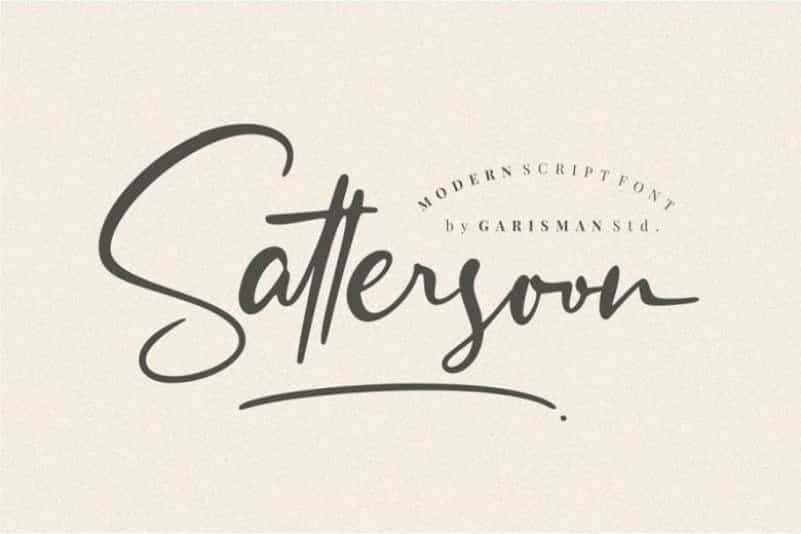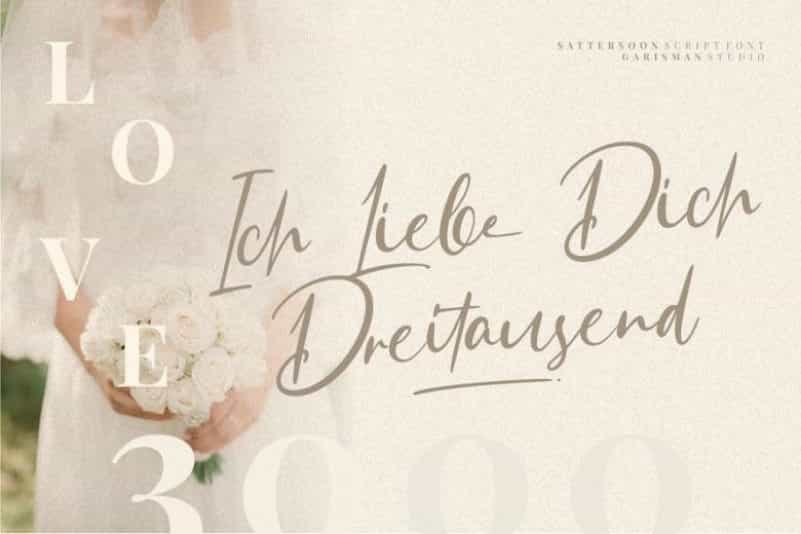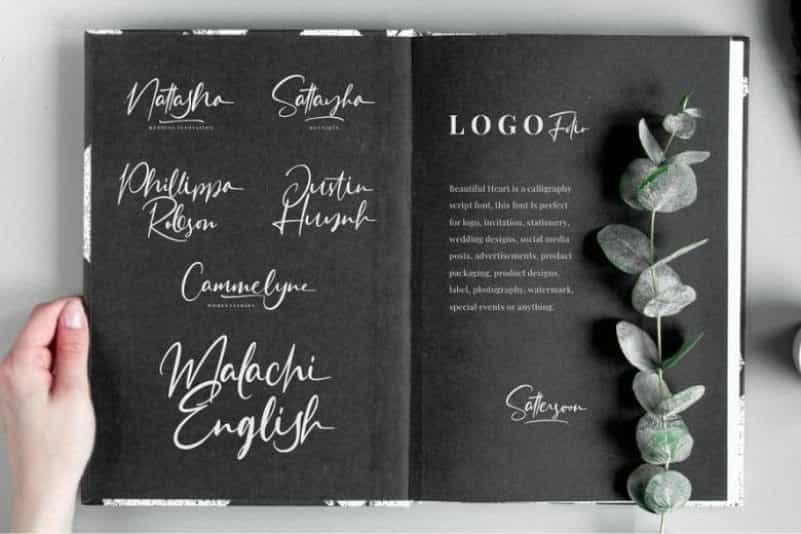
Meet Sattersoon Font. A dynamic and energetic handwritten script style designed to help you create designs effortlessly. This modern script font, by Garisman Std features swashes. Over 170 ligatures to add a touch of elegance to your projects. With its unique Opentype features and ligatures enhancing the appeal of your designs.This file contains Sattersoon Swash that can be combined to create a design.